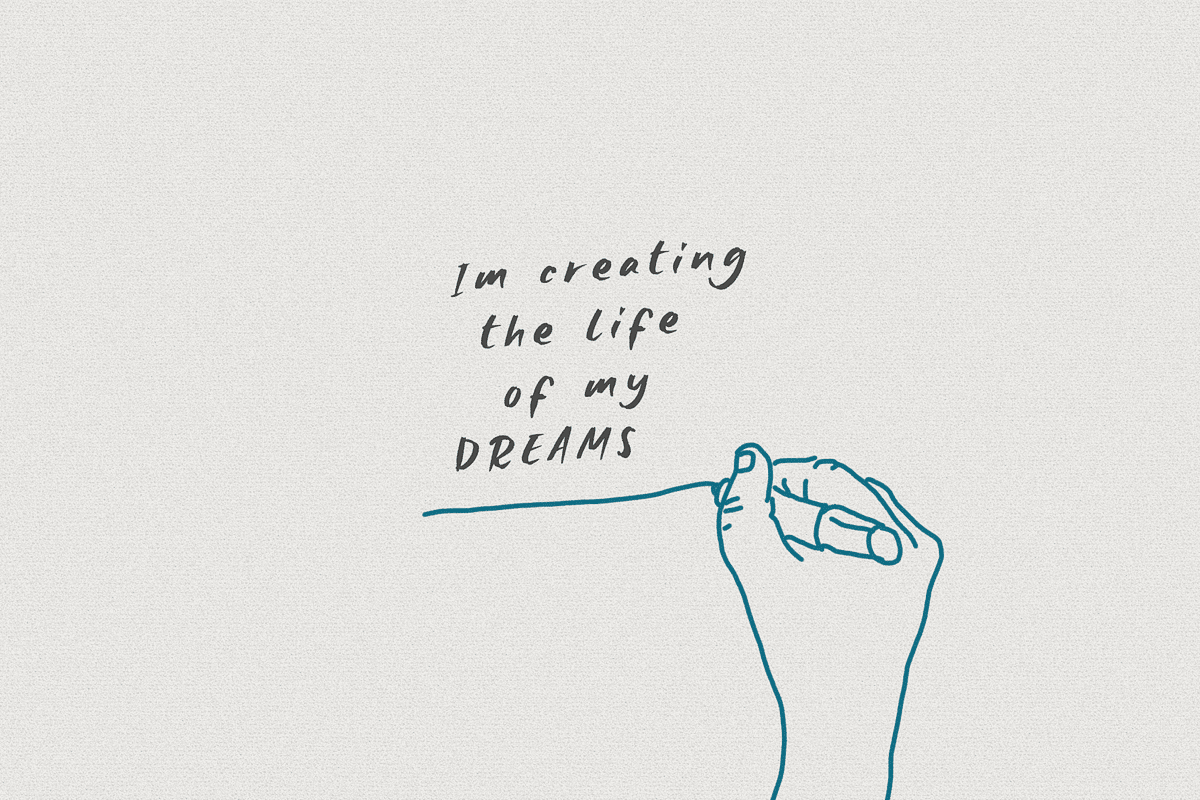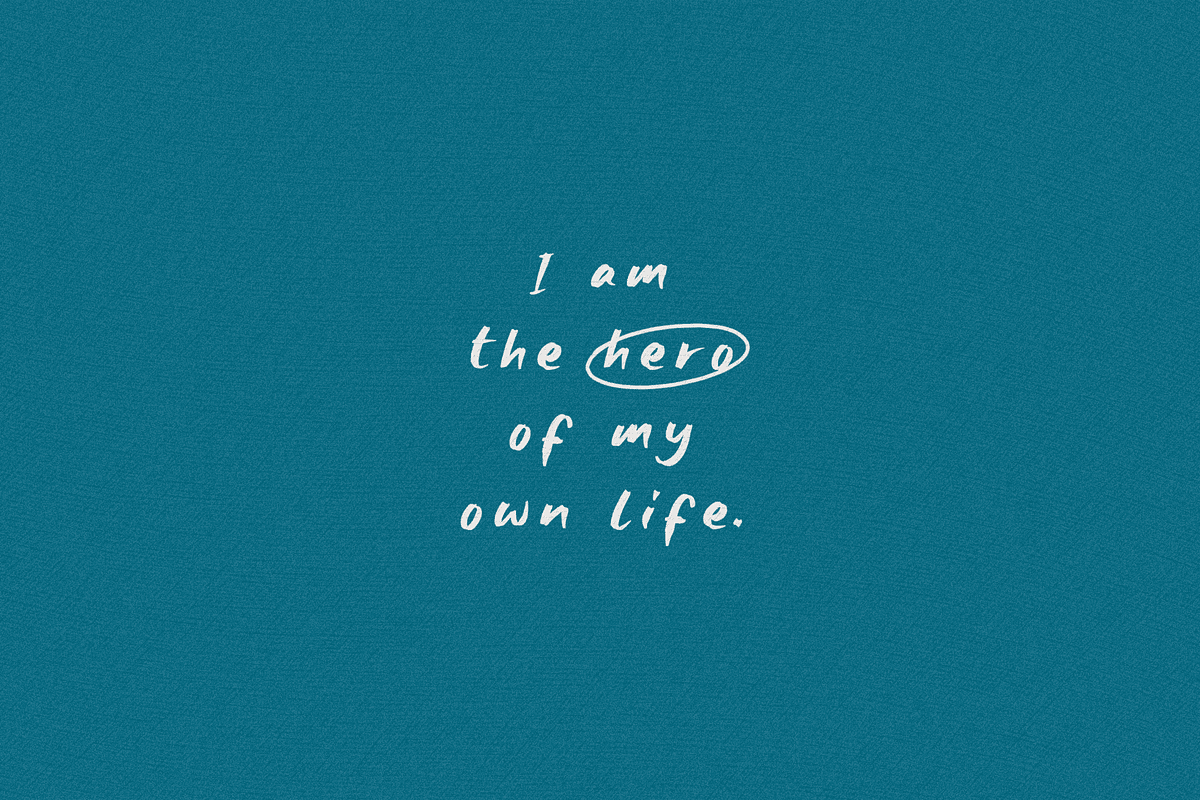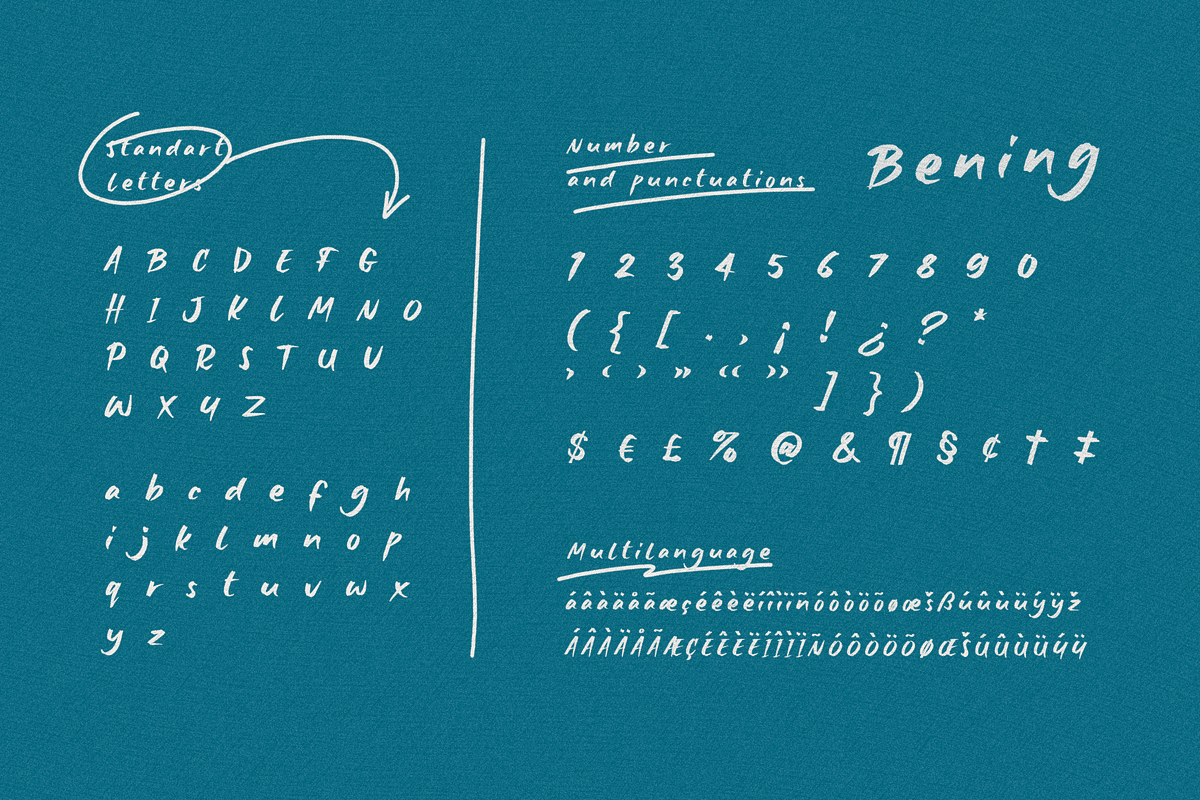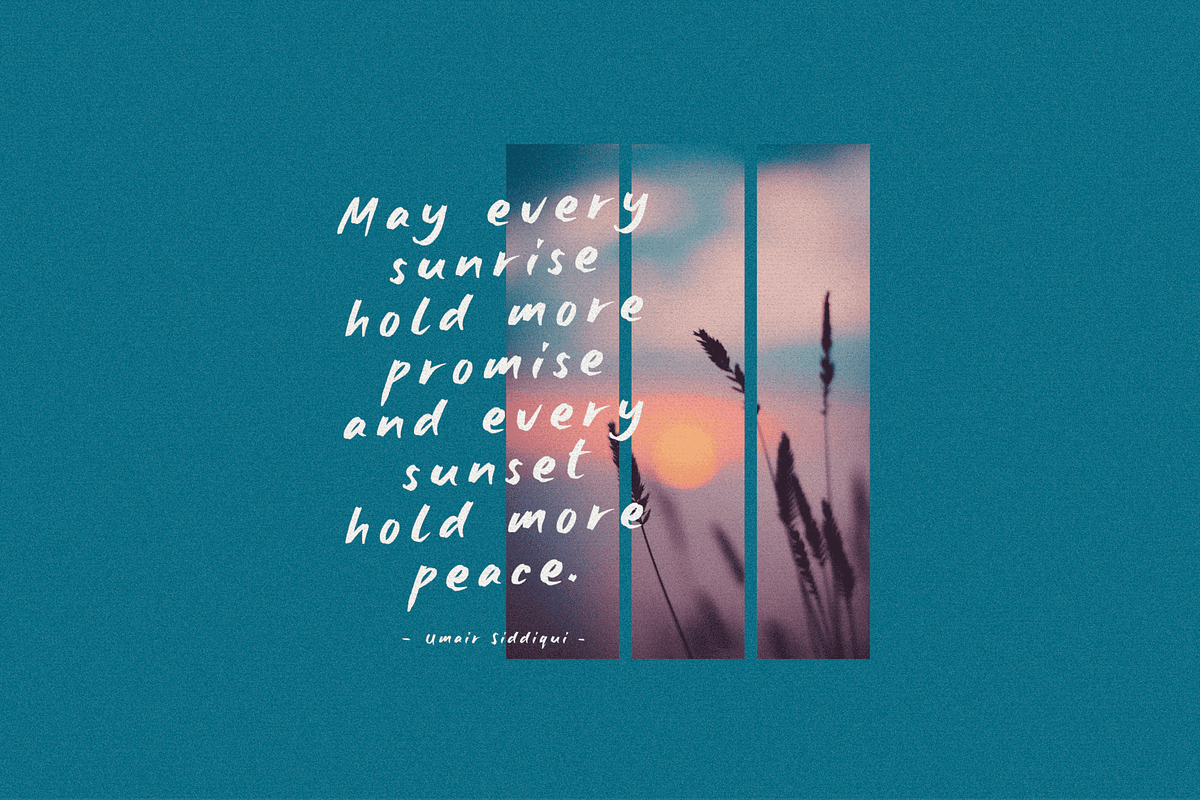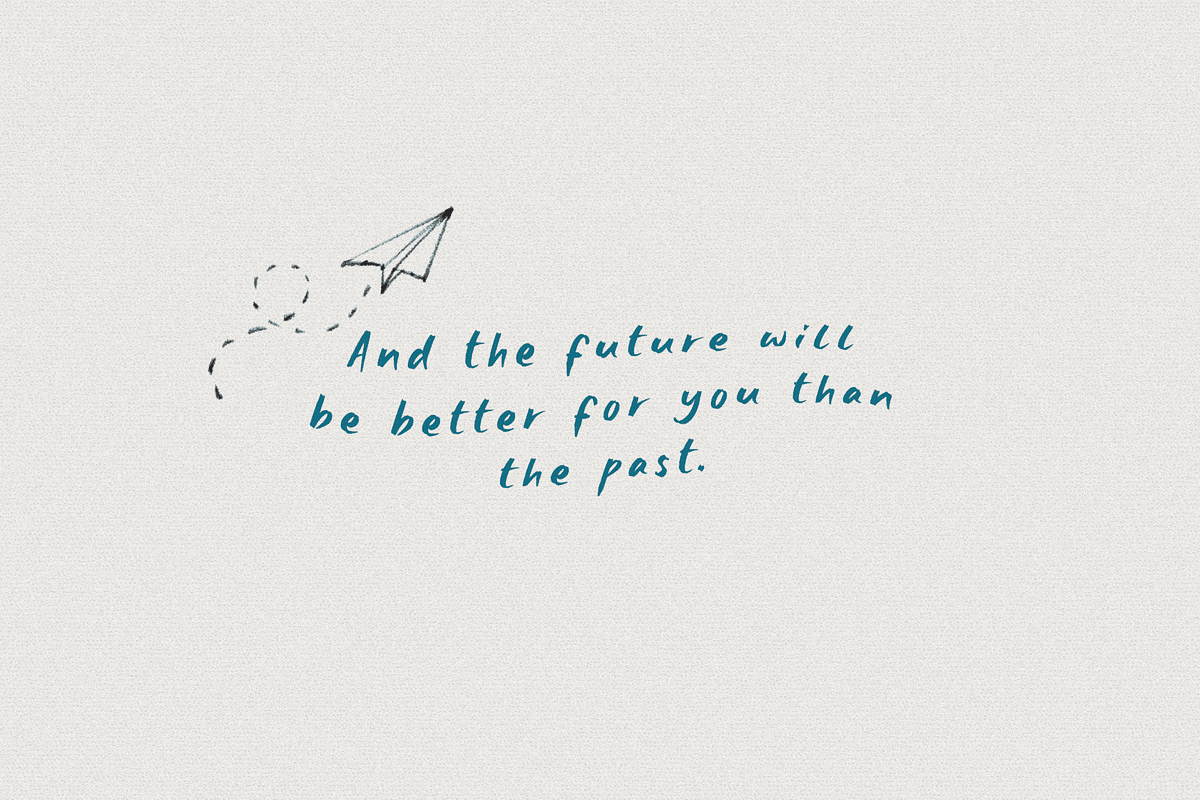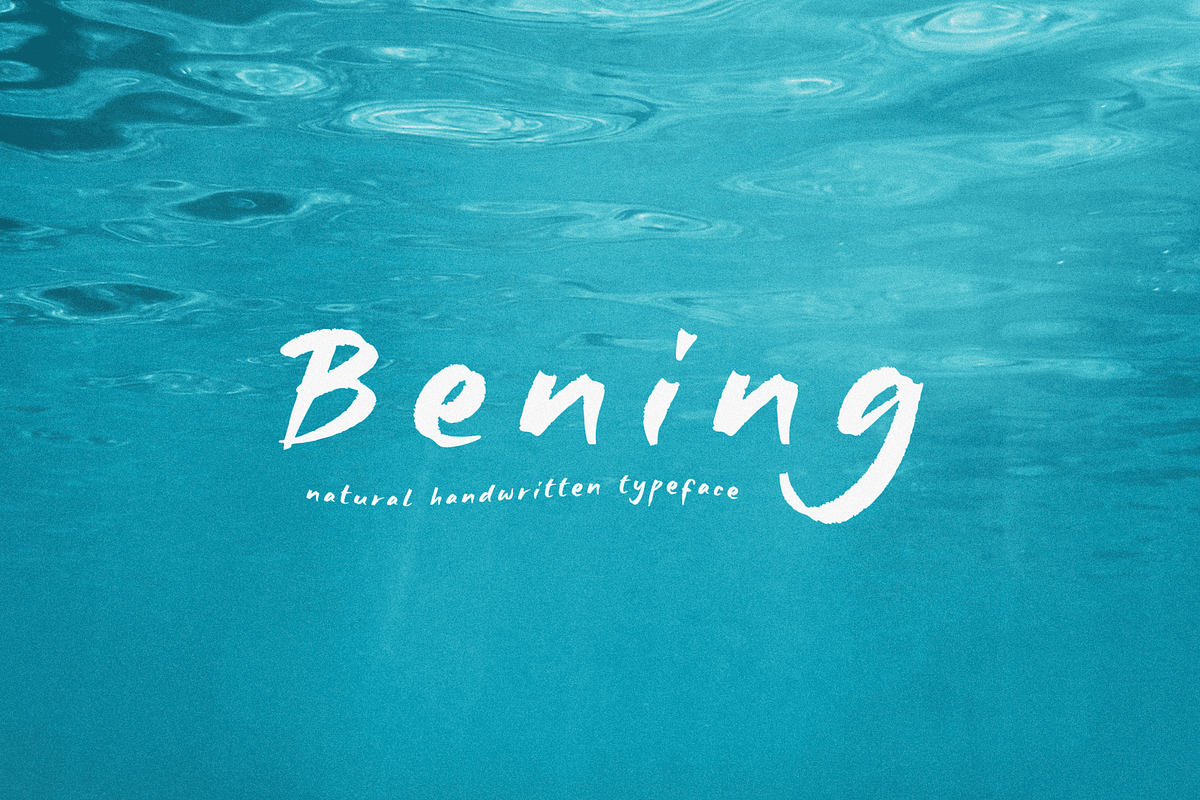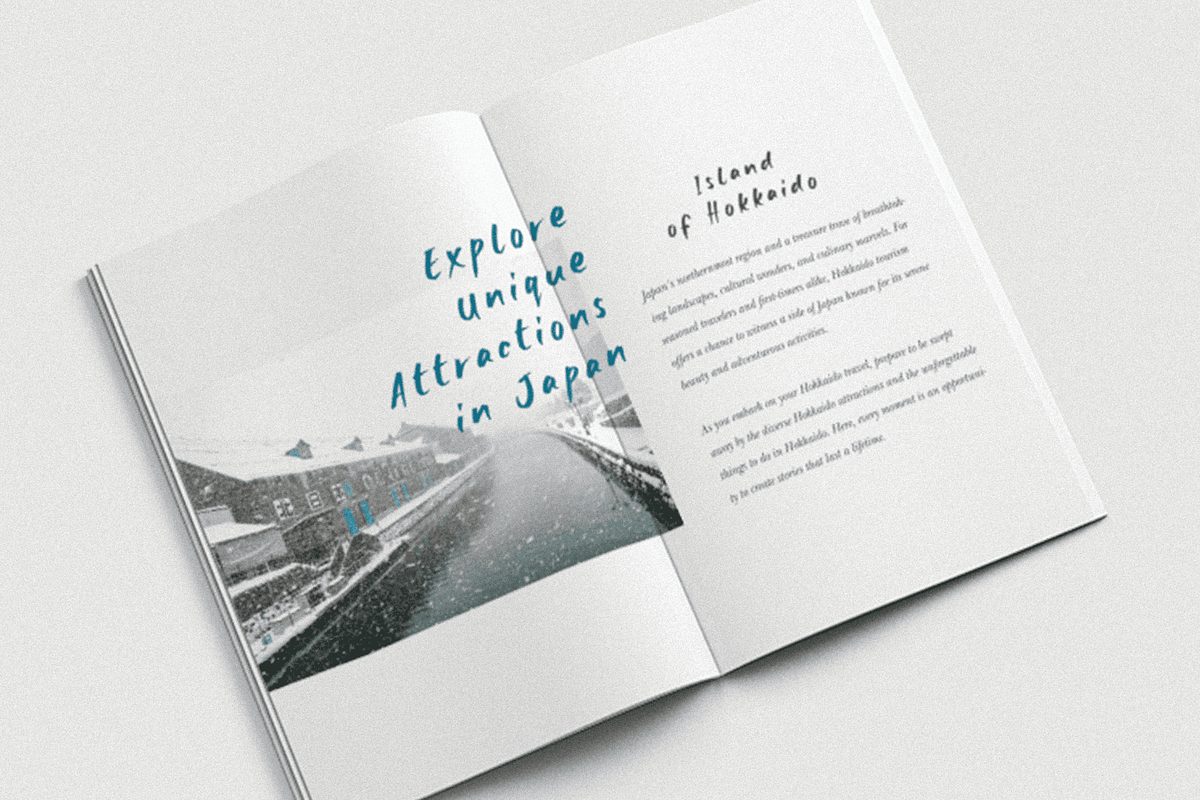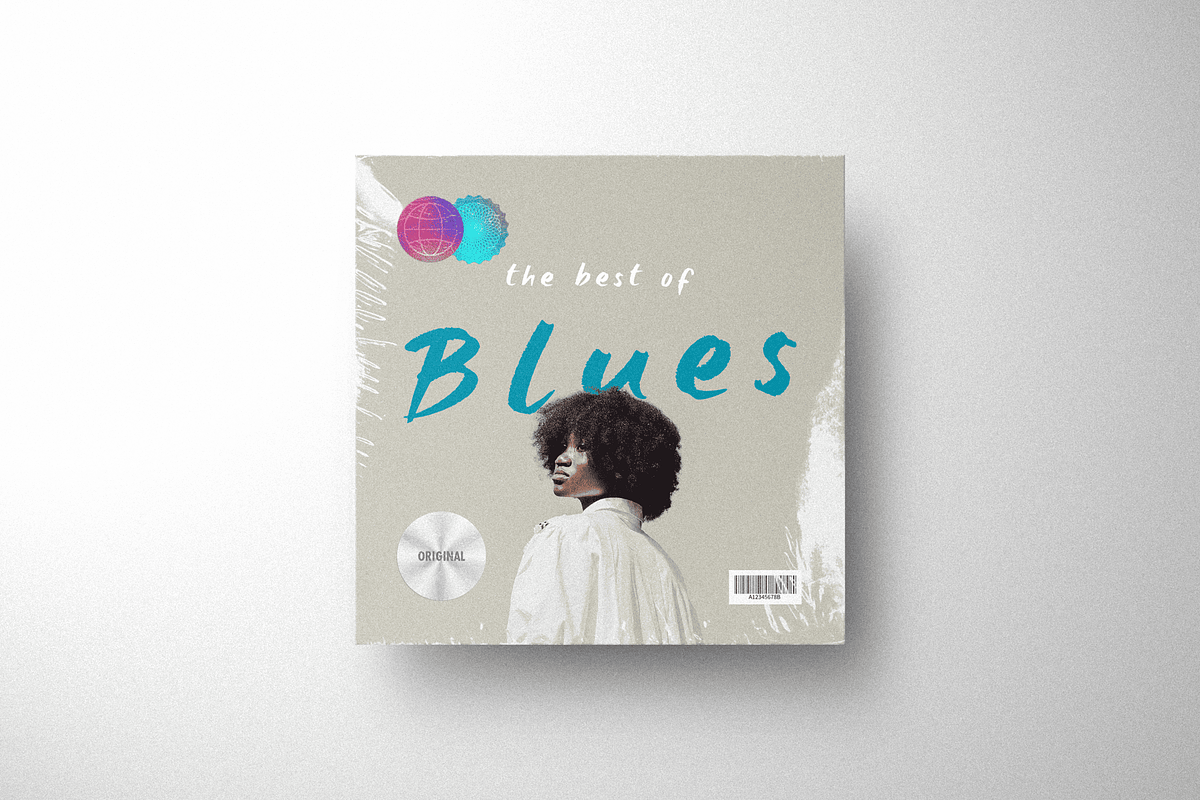
Bening
Bening is a natural hanwritting typeface original handwritten writing converted into a font. Bening will create a warm and pleasant atmosphere in every design project you create, for example book titles or covers, quotes on social media, and projects that you dream of.